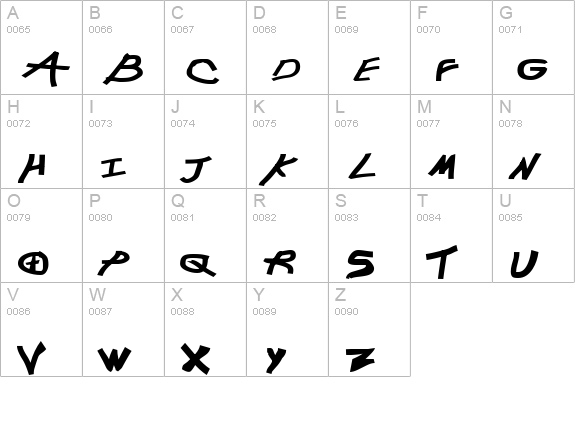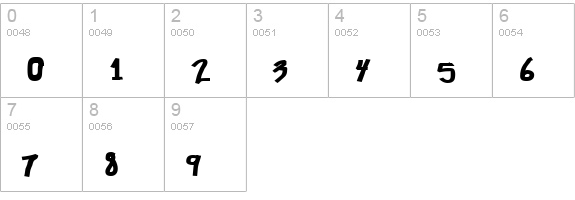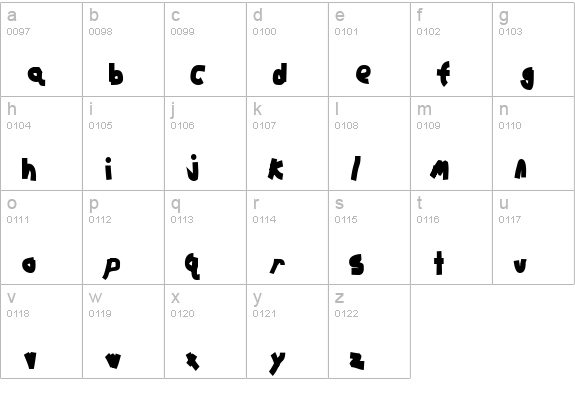
Chunkmuffin Heavy Font Details
Chunkmuffin Heavy is a heavy, high-impact variant in the Chunkmuffin typeface family \xE2\x80\x94 well suited to high-impact headlines, posters, and display advertising.
Chunkmuffin Heavy is a bold and eye-catching font that exudes strength and personality. Its thick, chunky letters make a powerful statement in any design, whether for headlines, logos, or posters. This font is perfect for projects that require a strong and impactful typographic presence. What sets Chunkmuffin Heavy apart is not just its boldness, but also its versatility. Despite its heavy weight, it remains highly readable and can be used effectively in a variety of design contexts. The distinctive shapes of its letters add a touch of playfulness, making it a fun and engaging choice for creative projects. And the best part? Chunkmuffin Heavy is available for free download at FontsMarket.com. This means you can add this powerful font to your collection without breaking the bank. So why wait? Download Chunkmuffin Heavy today and start making a bold statement with your designs.